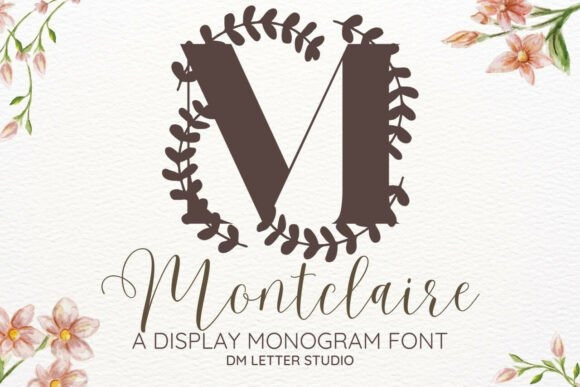
Montclaire Monogram Font
Montclaire Monogram Font turns simple initials into refined emblems that read fast. Lines feel smooth and confident. Curves stay balanced, so tiny tags still look crisp. Use it for wedding suites, boutique logos, keepsake gifts, and premium packaging. Moreover, Montclaire pairs beautifully with soft serifs and modern sans fonts. Therefore, your layouts feel elegant without extra effort.
Where the Monogram Font shines
Set single, double, or triple initials for logos, seals, and submarks. Then frame them with laurel rings, oval borders, or fine rules to echo the graceful structure. Since proportions favor symmetry, polished compositions come together in minutes. As a result, your thumbnails stand out on crowded marketplaces and your listings stay consistent across products. Plus, Montclaire scales smoothly from jewelry cards to venue signage.
Fast setup, polished results
Design tips for Montclaire Monogram Font
Keep initials large and let white space breathe. Pair the headline monogram with a quiet serif or humanist sans for supporting text. Meanwhile, add micro shadows, a thin inner stroke, or a delicate frame for depth. Because the forms feel airy, metallic accents and textured papers raise perceived value. However, keep copy short so the monogram remains the hero.
| Designer Name: | Sharon ( DmStudio ) |